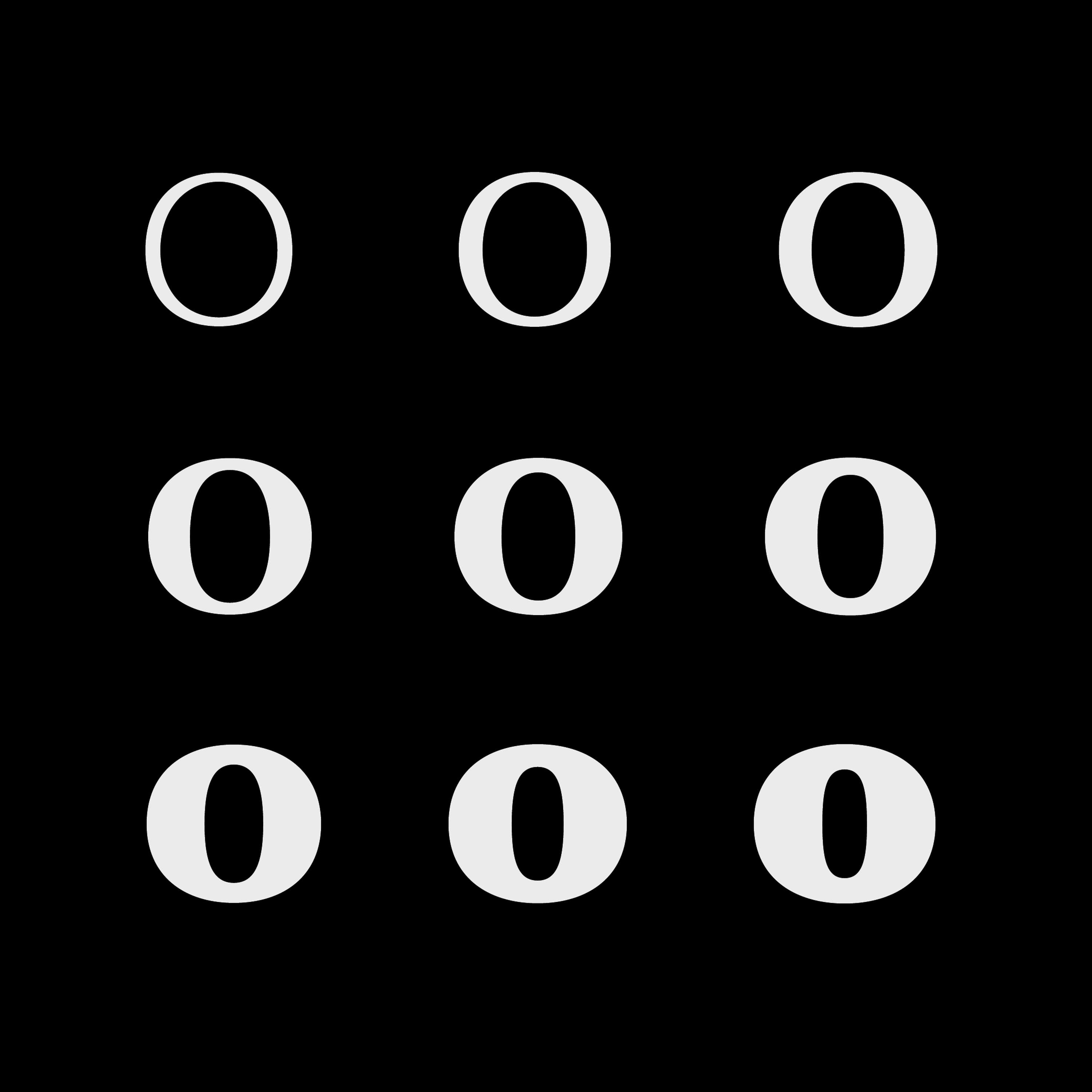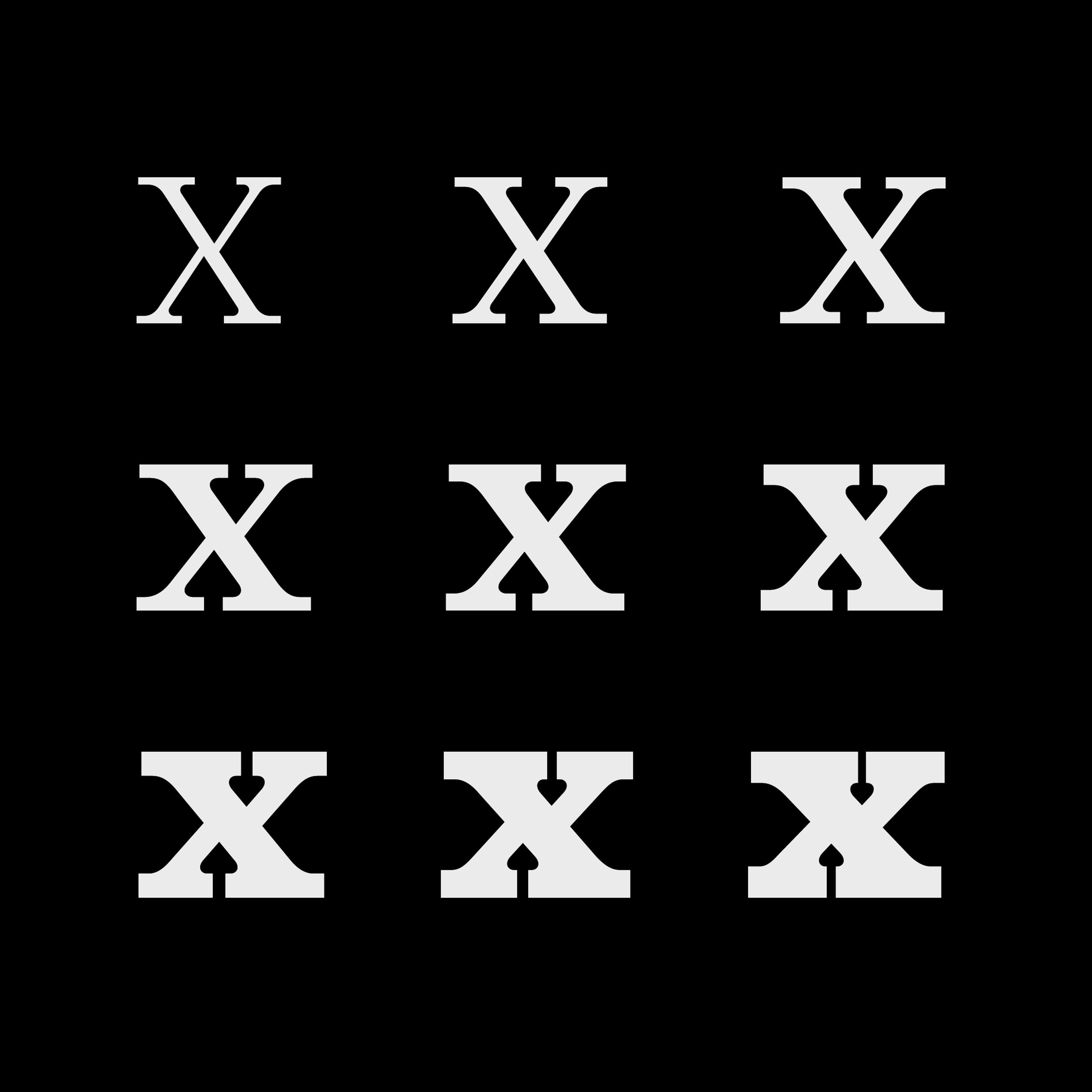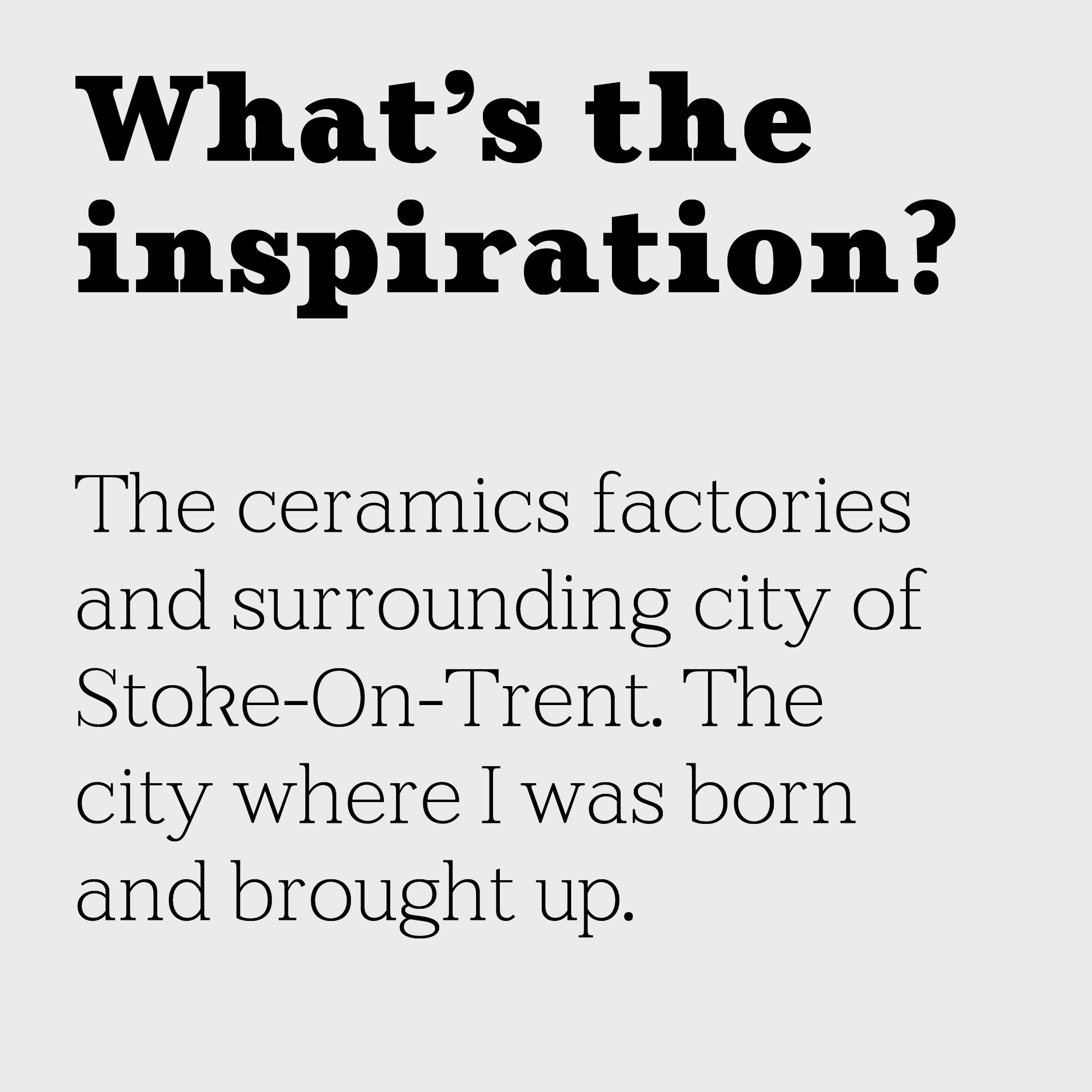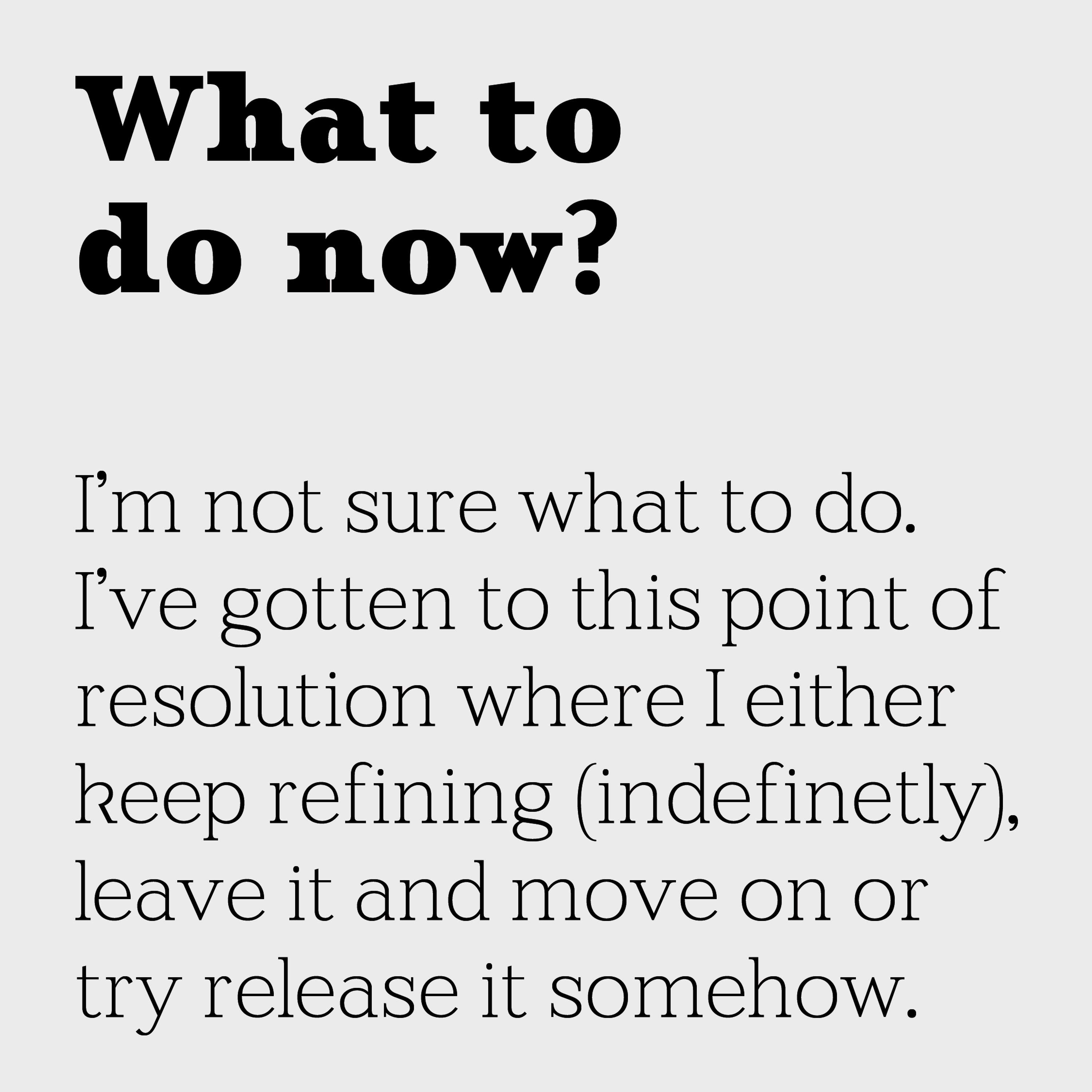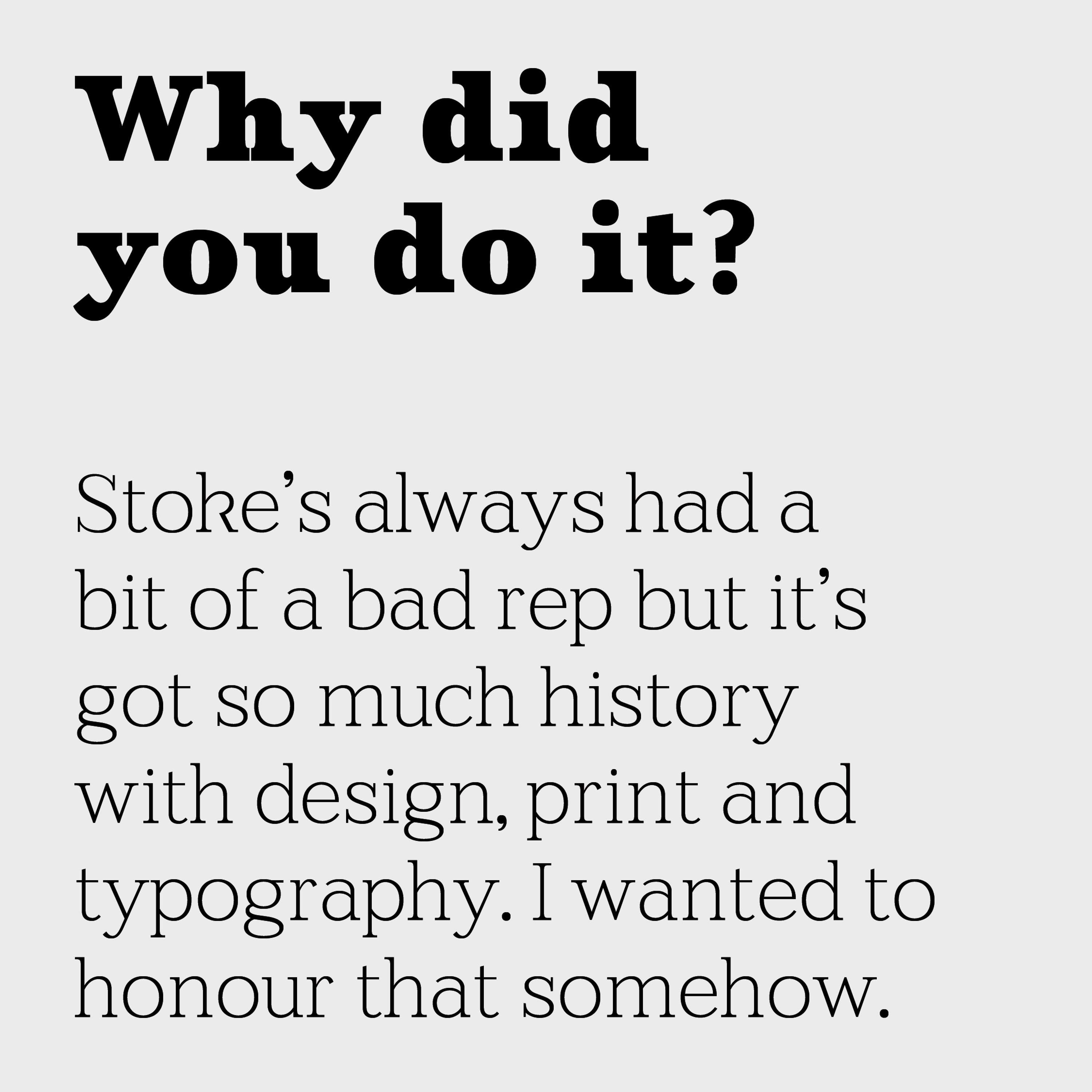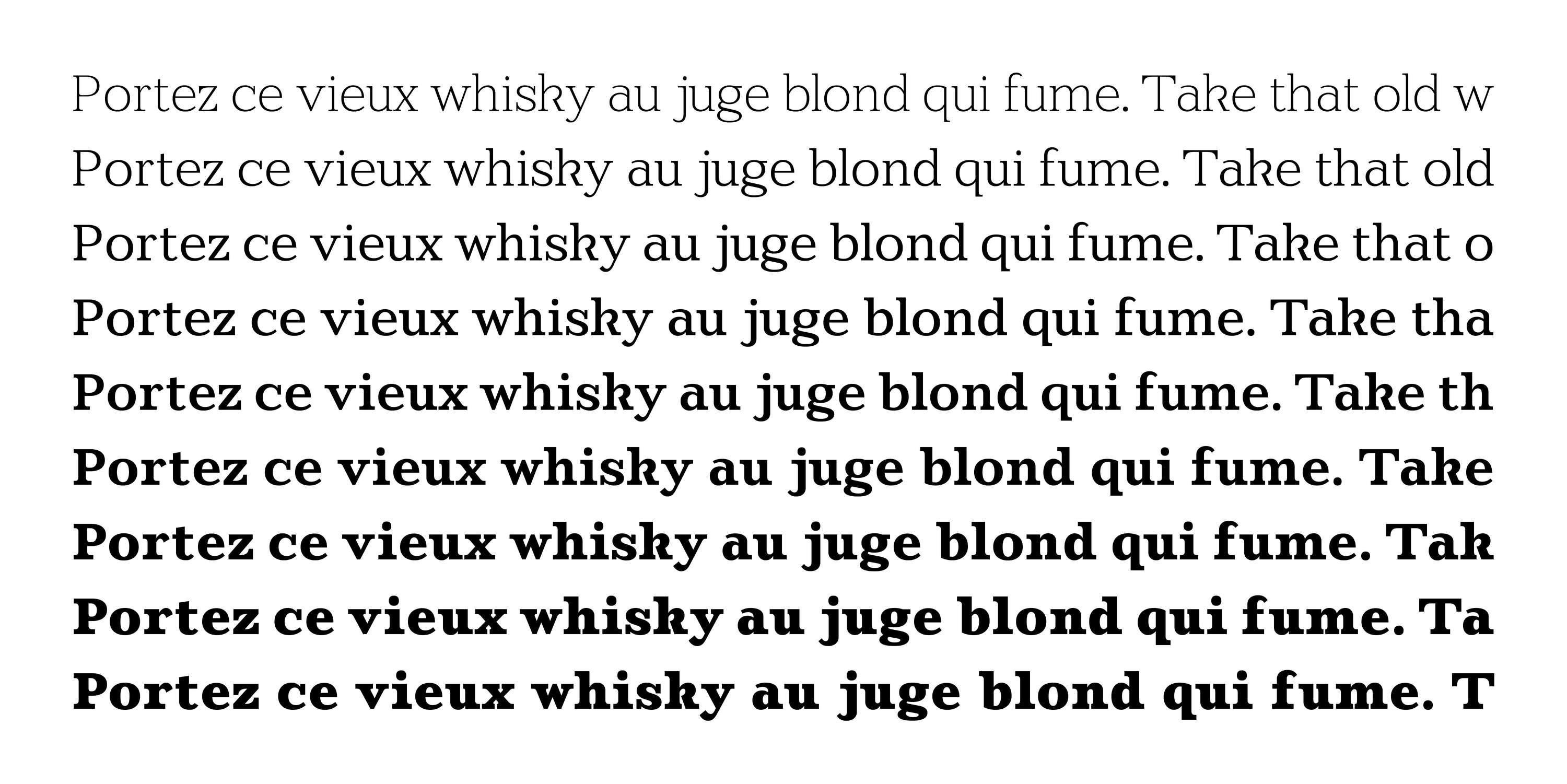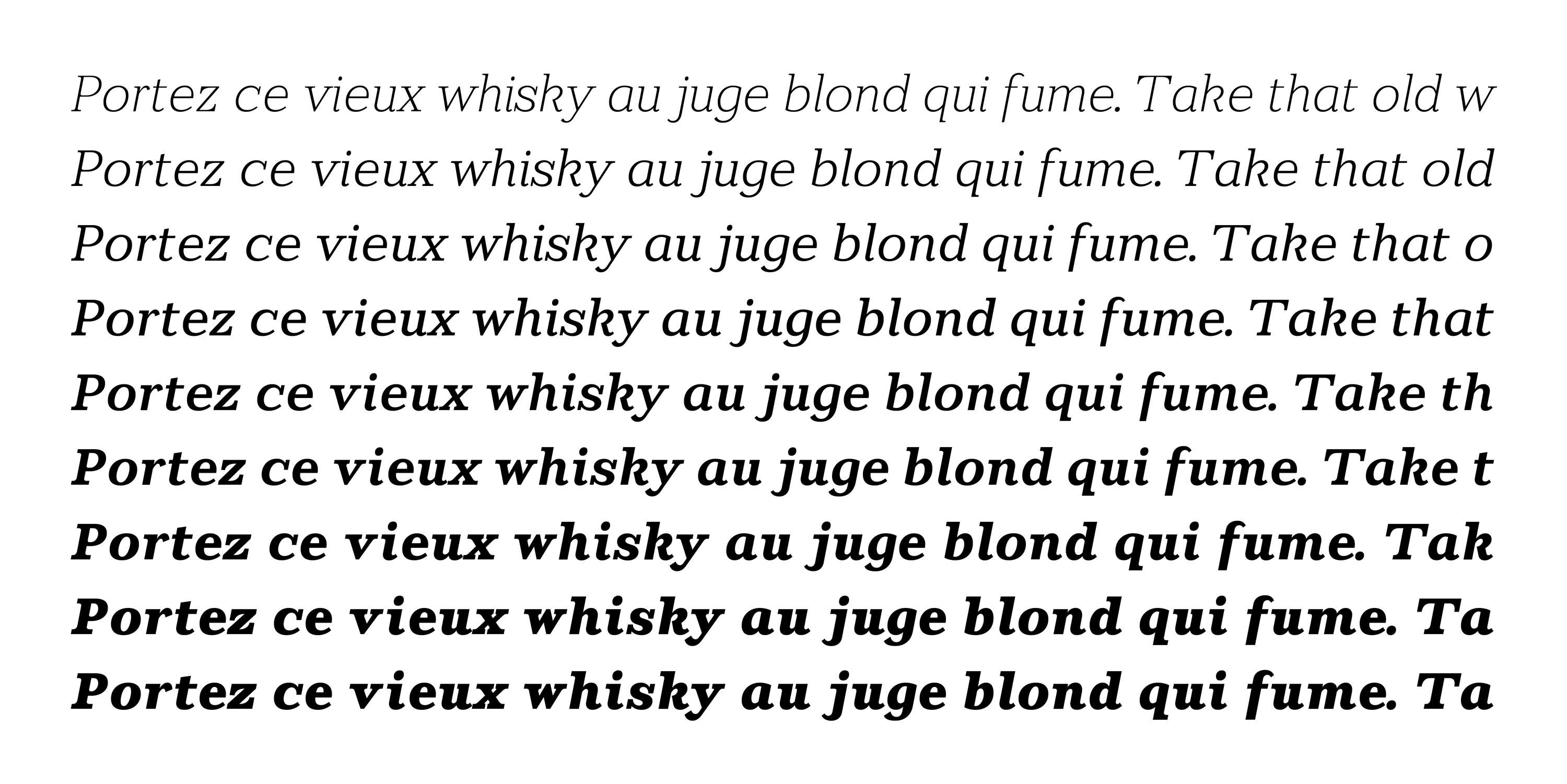
Stoke Slab font (WIP)
Stoke-On-Trent’s always had a bit of a bad reputation but it’s got so much history with design, print and typography. I wanted to honour that somehow. This self-initiated project started as a screen print are series titled "made by a stokey". The idea of this series was to highlight aspects of the ceramics industry in Stoke making people think of the potteries and not the debt-ridden Brexit capital that was portrayed in the media. The typeface started with this "made by a stokey" print series and has now been developed into 9 weights. It's a work in progress but at a point I can start talking about it. You can read more about what inspired this project here: https://www.asdesignlondon.com/post/stoke-slab-a-typeface-from-the-potteries